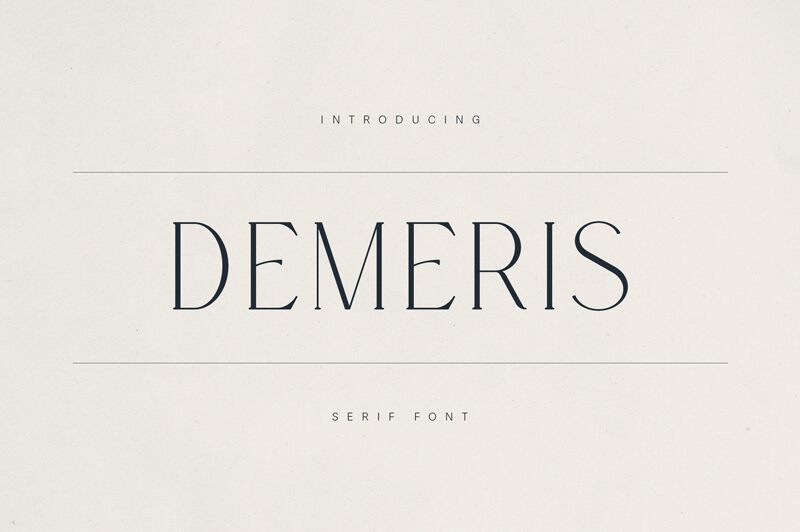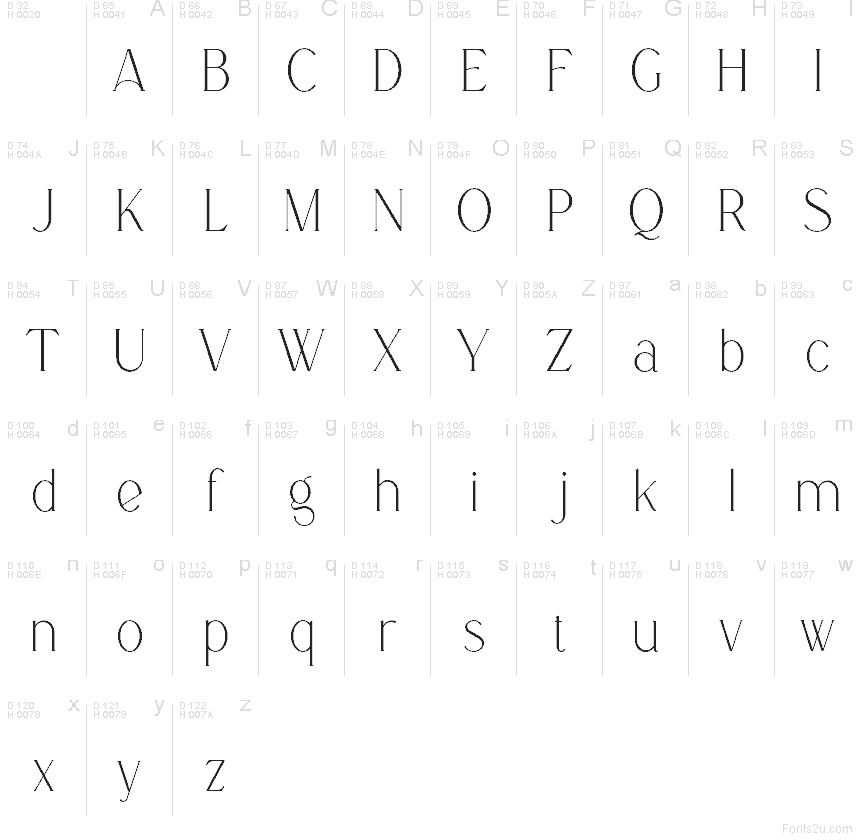
Demeris Demo Regular
Demeris font by VPcreativeshop is a free serif font that brings a poised, editorial grace to your layouts. Its letters are tall and slender with finely drawn strokes, giving text a refined, almost weightless feel—like ink pulled slowly across smooth paper. The gentle curves and narrow proportions add a fashion-forward elegance that feels luxurious without being fussy.
Using Demeris, your work immediately leans into a magazine-style aesthetic, making this free font a natural fit for beauty branding, perfume packaging, fashion lookbooks, wedding stationery, boutique logos, and minimalist posters. It shines at larger sizes where its delicate structure can breathe; pair it with a clean geometric sans for body copy to keep your hierarchy sharp and contemporary.